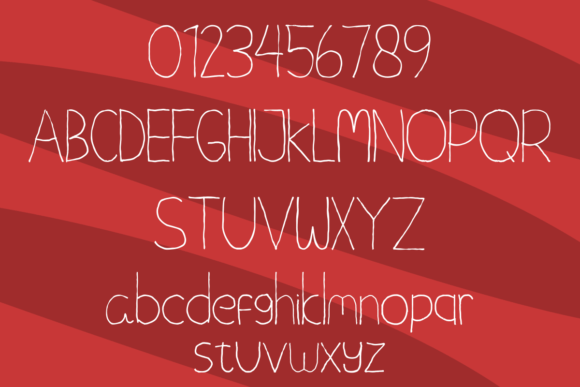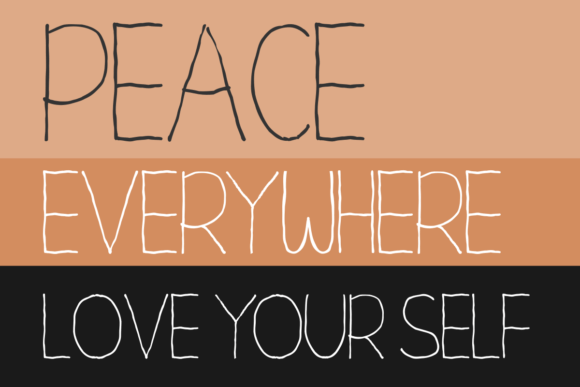
Neverthink Font
About Neverthink Font
Meet Neverthink, a playful and casual handwritten font that brings a touch of fun and quirkiness to your designs. This versatile typeface is not just casual; it’s incredibly adept, fitting seamlessly into a wide variety of contexts. Neverthink adds a lighthearted and whimsical vibe to your projects, making it a go-to choice for various creative applications.
The charm of Neverthink lies in its handwritten style, giving your text an authentic and approachable feel. Whether you’re creating posters, social media graphics, or any other design project, this font adapts effortlessly, injecting a sense of playfulness into your work.
Picture Neverthink in action, making your designs stand out with its casual yet expressive demeanor. It’s the perfect companion for projects where you want to convey a laid-back and friendly atmosphere. Whether you’re aiming for a quirky headline or adding a touch of personality to your branding materials, Neverthink is ready to play its part.
In summary, Neverthink is more than just a font; it’s a creative tool that brings a fun and casual energy to your projects. Embrace its quirkiness confidently, knowing that it can add a touch of playfulness to a wide variety of design contexts. Let Neverthink be the choice that infuses your designs with a lighthearted and versatile charm, making them memorable and engaging.